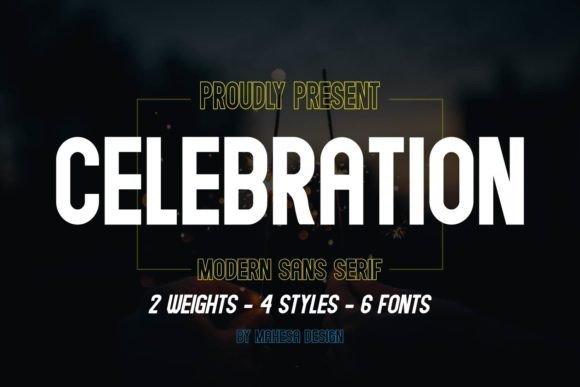
The Perfect Font for Your Next Big Celebration
Have you ever been working on a project, and suddenly, the perfect font strikes you like a ray of sunshine? That’s exactly what happened to me when I stumbled upon the Celebration Font. I was brainstorming ideas for a client’s new restaurant, and I knew I needed something modern and eye-catching to make it stand out. That’s when I discovered Celebration Font – a cool and modern sans serif font that’s perfect for making a statement.
As a designer, you know how hard it can be to find the perfect font to match your vision. But with Celebration Font, you can add a touch of sophistication and style to any project. Whether it’s a logo, a brochure, or a website, this font is sure to impress. Its versatility and modern feel make it a valuable addition to any designer’s toolkit.
Celebration Font Key Features
- Unique Characteristics: This font features a dynamic and energetic design, with a mix of rounded and geometric shapes, making it perfect for celebratory and festive designs.
- Font Style: The font comes in both regular and bold weights, allowing for flexibility in design and emphasis.
Celebration Font Review
I’ve worked with the Celebration font for a few projects now, and I have to say, it’s a real mixed bag.
- Unique style: The Celebration font has a distinctive, party-like feel that’s perfect for titles, headings, and other design elements where you want to grab attention.
- Legibility: Despite its playful nature, the font is surprisingly easy to read, even at smaller sizes.
- Flexibility: The Celebration font comes in a range of weights and styles, making it versatile enough for use in a variety of design contexts.
- Lack of consistency: While the font’s unique style is a strength, it can also be a weakness if used consistently throughout a design. The irregular letterforms can make text look cluttered and difficult to read if not used thoughtfully.
- Overuse: The Celebration font’s party vibe can quickly become overwhelming if overused. It’s essential to balance it with more subdued typography to avoid visual fatigue.
While the Celebration font has its strengths, its limitations can be a challenge to navigate. When used thoughtfully and in moderation, it can add a fun, celebratory touch to designs. However, it’s not a font I’d recommend using for body text or lengthy passages of text.
Getting the Most Out of Celebration Font
Use the Celebration Font to add a touch of celebration to your designs, presentations, and documents.
Try pairing it with bold colors and bright graphics to create a festive atmosphere.
Use it for special occasions such as weddings, birthdays, and holidays.
Some common use cases for the Celebration Font include:
Wedding invitations and decorations
Party invitations and decorations
Holiday cards and decorations
Graduation announcements and decorations
Alternatives to Celebration Font for Designers
Great Vibes Font is a beautiful, modern script font that works well for creating a sense of excitement and energy. It’s ideal for use in headings, titles, and other text that needs to stand out. When to use: Event invitations, social media graphics, and promotional materials.
Compared to Celebration Font, Great Vibes Font has a more elegant and refined feel, making it suitable for a wider range of design projects.
Pacifico Font is a stylish, cursive font that evokes a sense of relaxation and sophistication. It’s perfect for use in headings, titles, and body text that needs to convey a sense of calm. When to use: Event programs, menus, and other materials that require a more subdued tone.